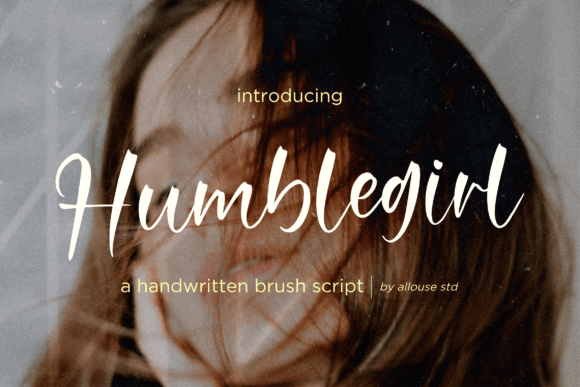
Introducing Humblegirl Font, the ultimate choice for those seeking the perfect blend of elegance and modernity. This exquisite handwritten script font, created by allouse.studio, is meticulously crafted to elevate your designs to new heights.
With its stylish and contemporary appeal, Humblegirl Font is the epitome of sophistication. Its gentle strokes and graceful curves exude a sense of charm that captivates the viewer's attention. Whether you're designing for print or screen, this font is guaranteed to leave a lasting impression.
Imagine the possibilities as you unleash the power of Humblegirl Font on your projects. Its versatility knows no bounds, seamlessly adapting to various design ideas. From wedding invitations to branding materials, this font effortlessly adds a touch of joy and romance, creating a mesmerizing visual experience.
Crafted with love and attention to detail, Humblegirl Font is the perfect companion for creators who seek uniqueness and individuality. Its extensive character set and wide range of ligatures allow you to create stunning typography that truly stands out.
But it's not just about aesthetics. Humblegirl Font is designed to evoke emotions and tell stories. Its expressive nature conveys a sense of authenticity and warmth, establishing a genuine connection with your audience. With every letter, this font brings your words to life, leaving a lasting impact on anyone who encounters it.
Experience the transformative power of Humblegirl Font and unlock the true potential of your designs. Whether you're a professional designer or an aspiring creator, this font is your secret weapon to make your projects shine. Let Humblegirl Font be your creative companion, inspiring you to create captivating and unforgettable masterpieces.